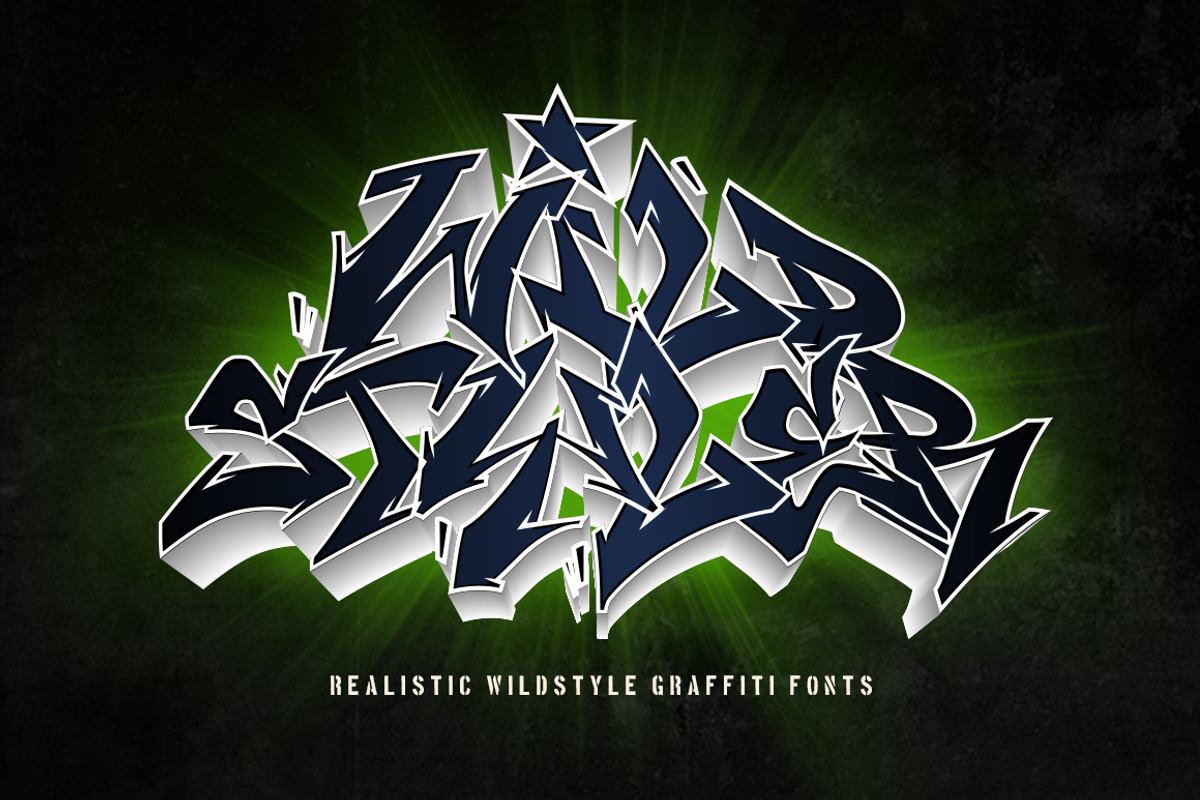
Graffiti Inspired Fonts | Wildstyler Free Download is a bold, chaotic, and expressive typeface that channels the raw energy of street art and urban culture. With sharp angles, overlapping forms, and stylized strokes, Wildstyler is perfect for hip-hop event flyers, underground fashion branding, mural-inspired artwork, and digital designs that need a rebellious, eye-catching vibe.
This font mimics the freeform lettering found in graffiti tags and wildstyle pieces—making it ideal for artists and designers who want to push visual boundaries. It’s available to download for testing, but a commercial license is required for any professional or monetized use.
Bring the streets to your screen with Graffiti Inspired Fonts | Wildstyler Free Download and unleash the creative chaos of urban lettering. It’s a must-have for edgy designs that demand attitude, authenticity, and serious style.